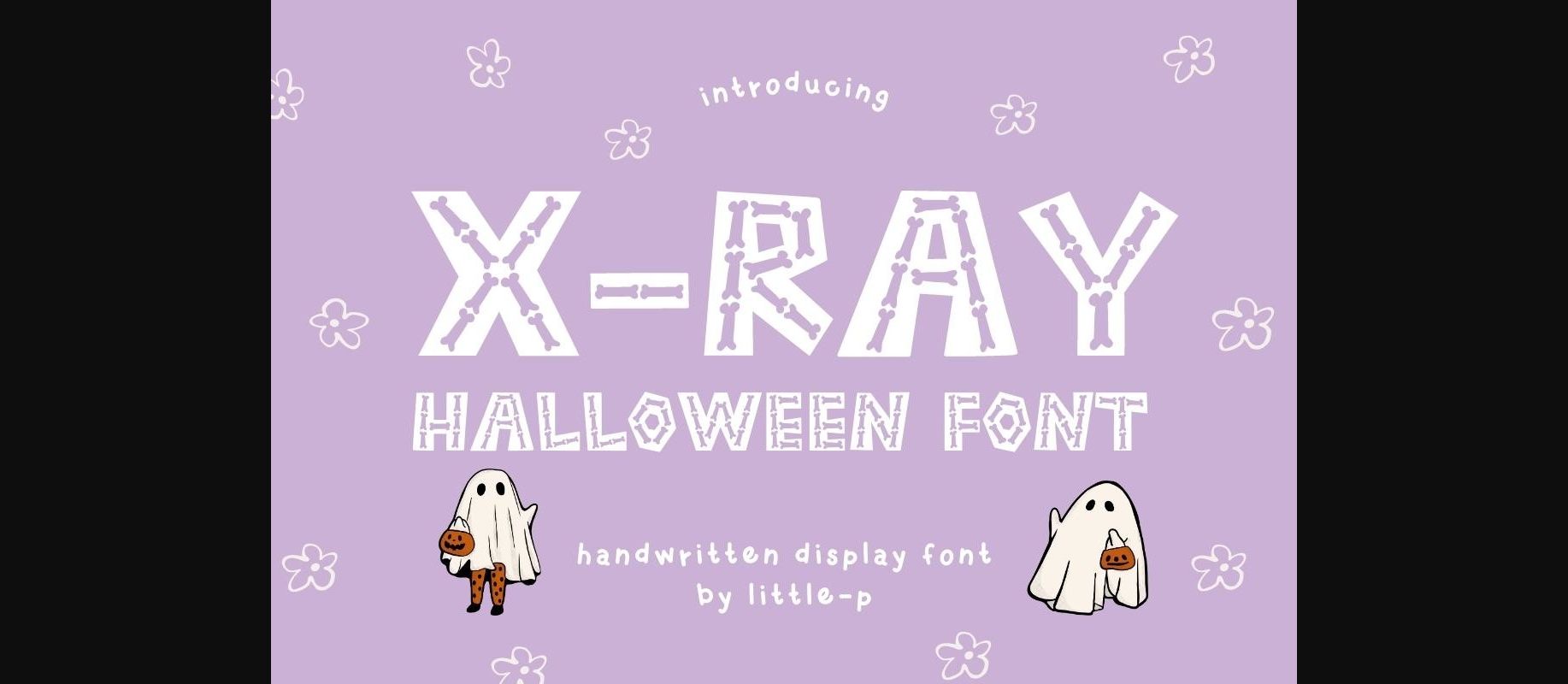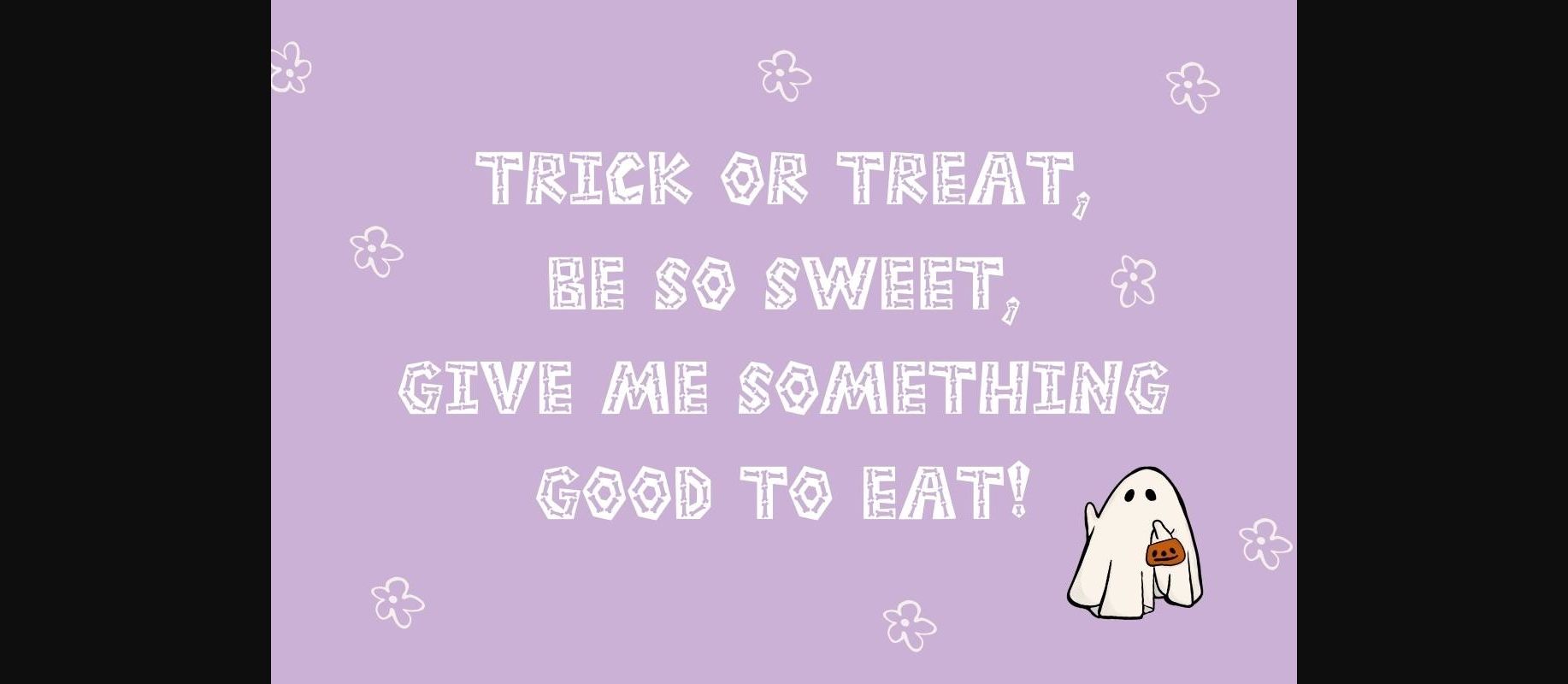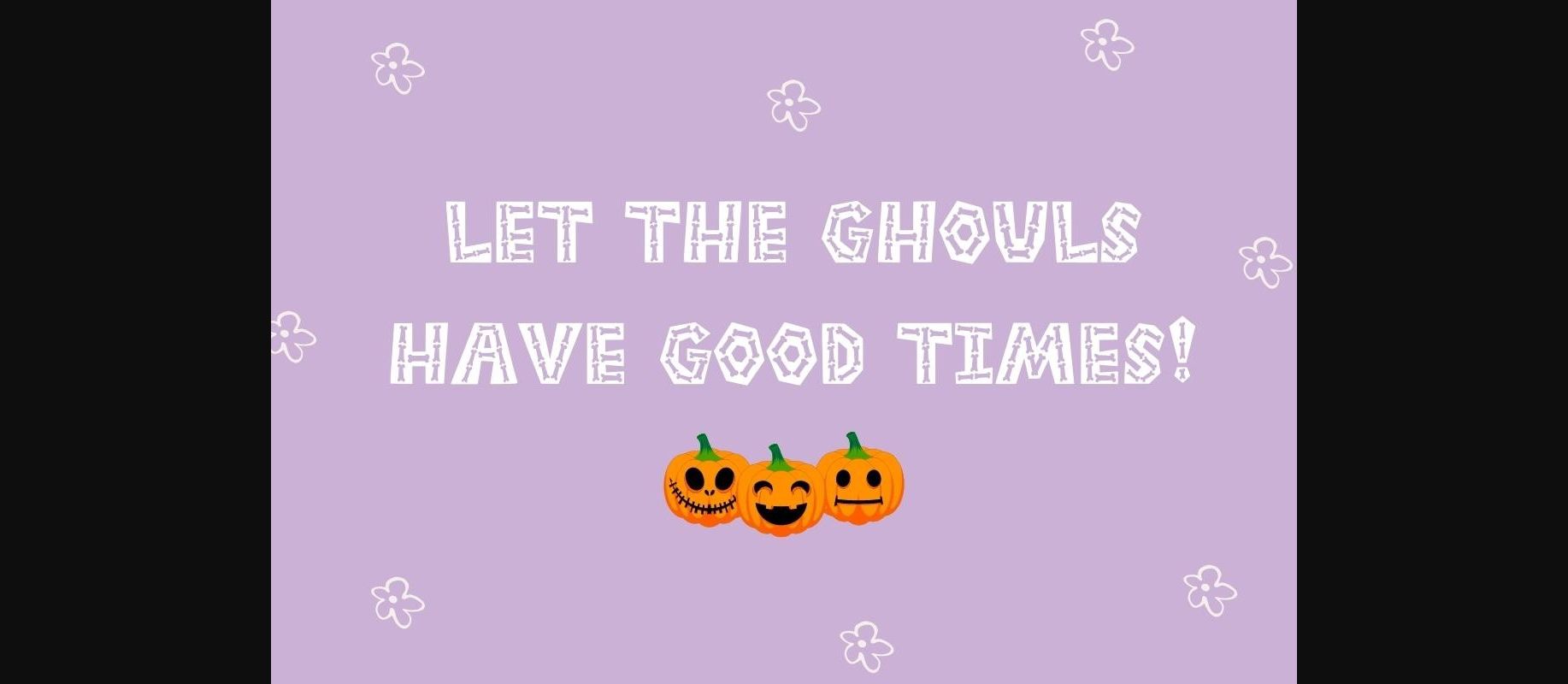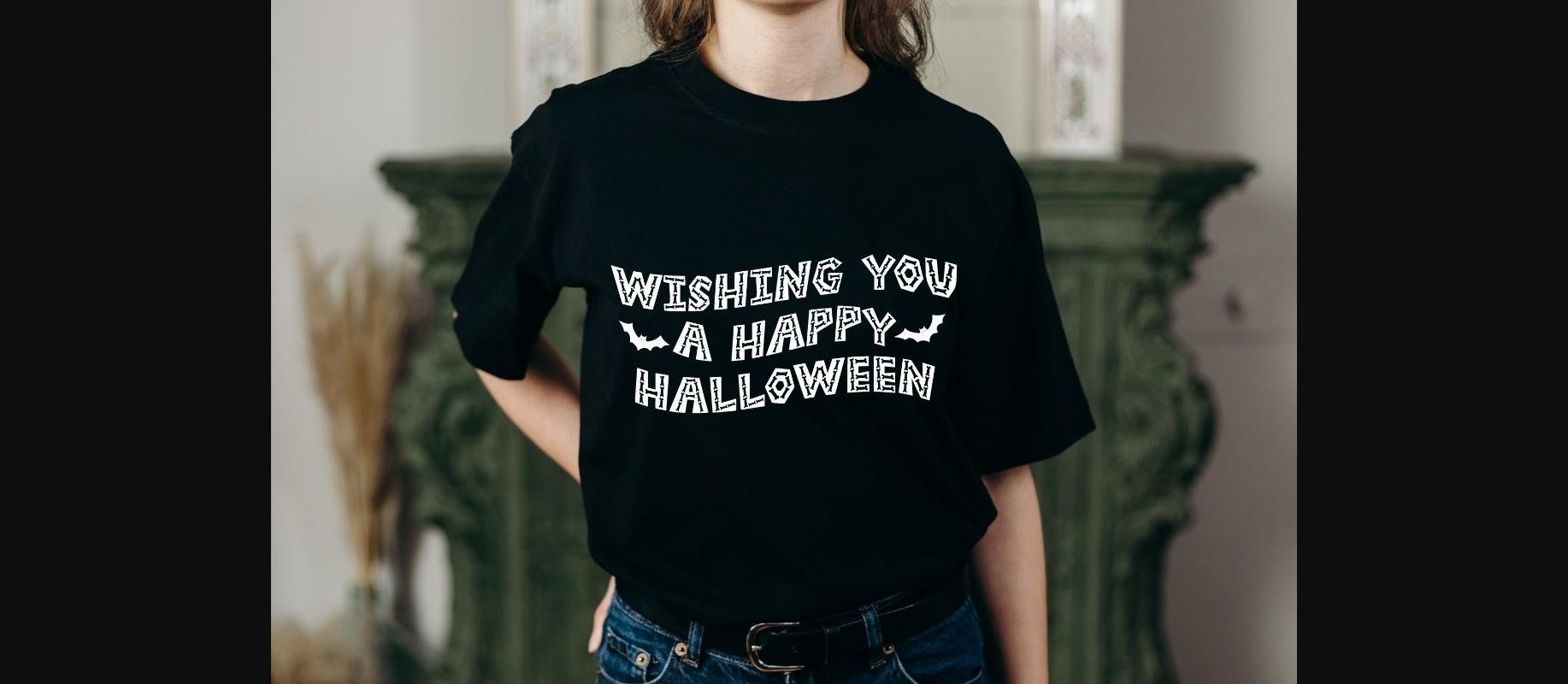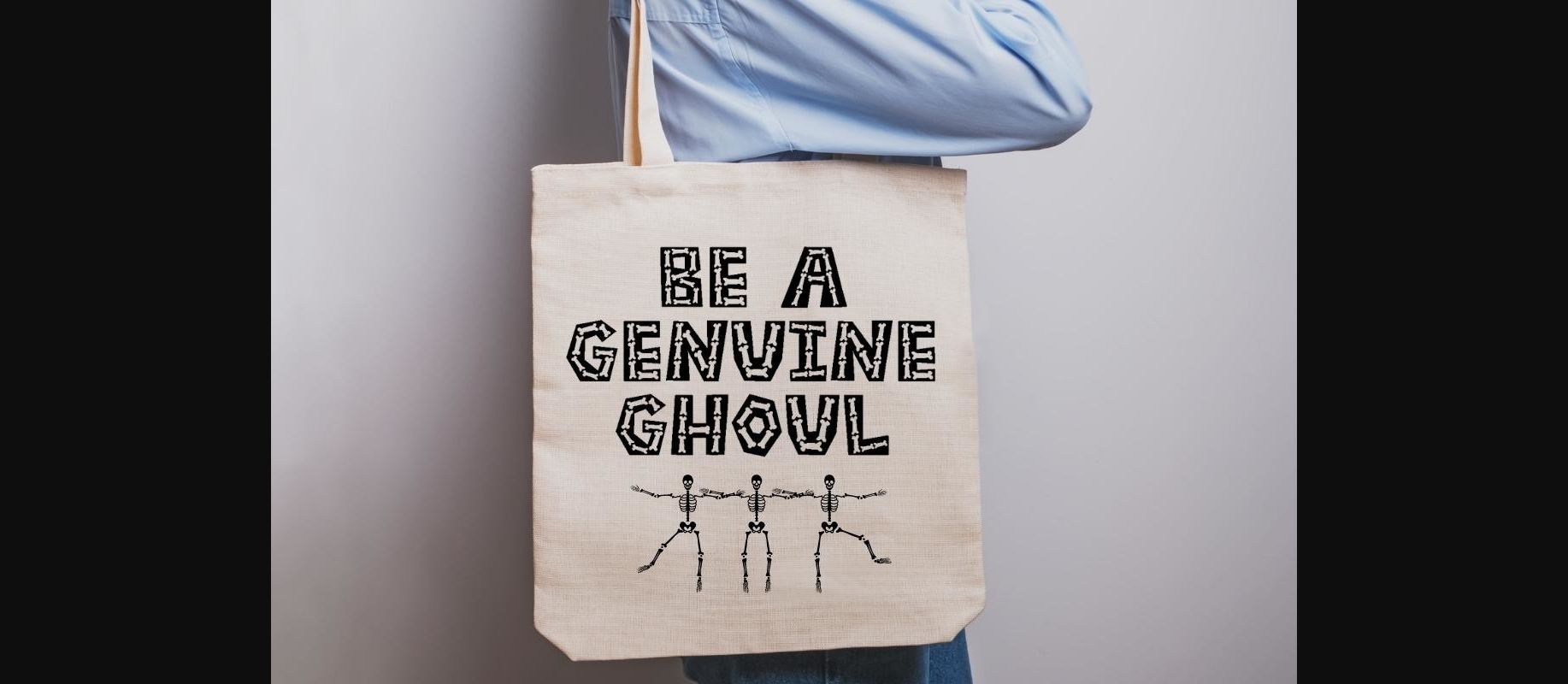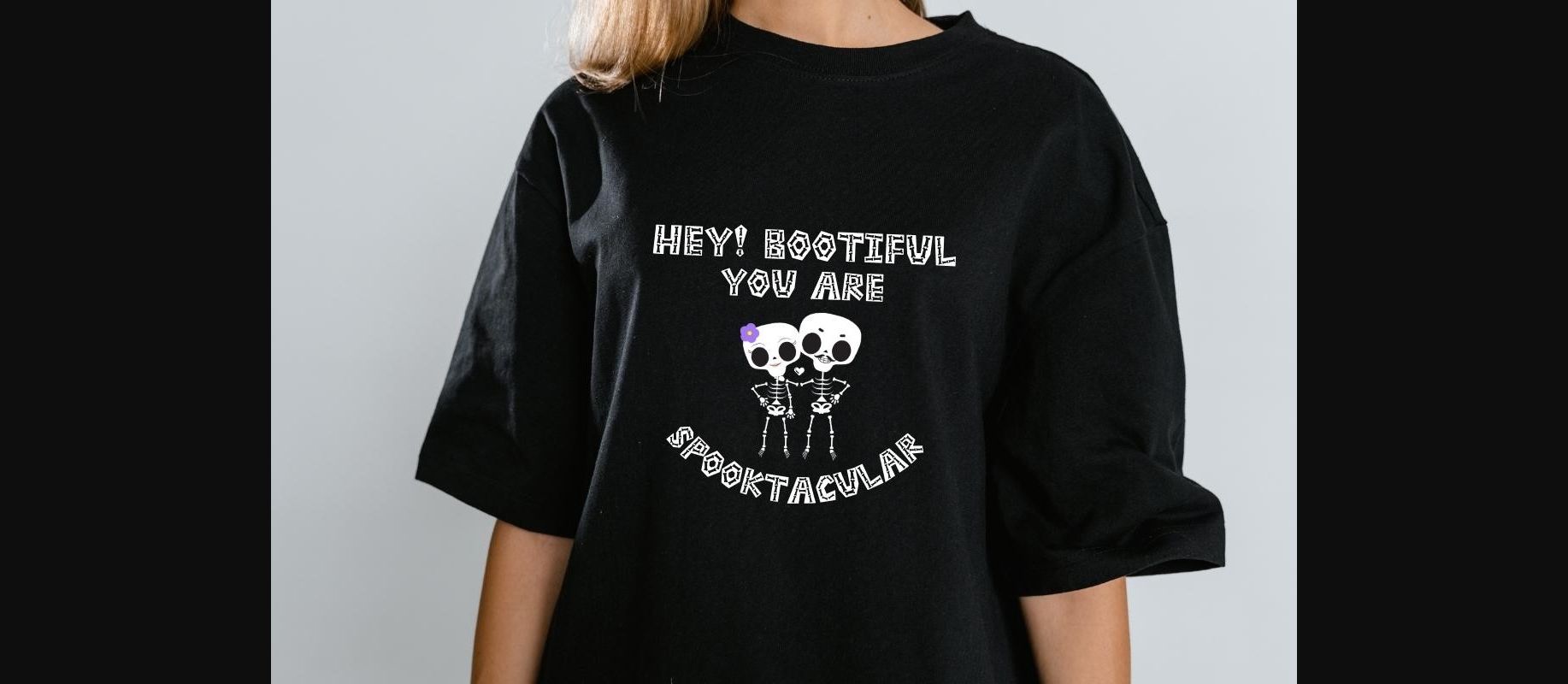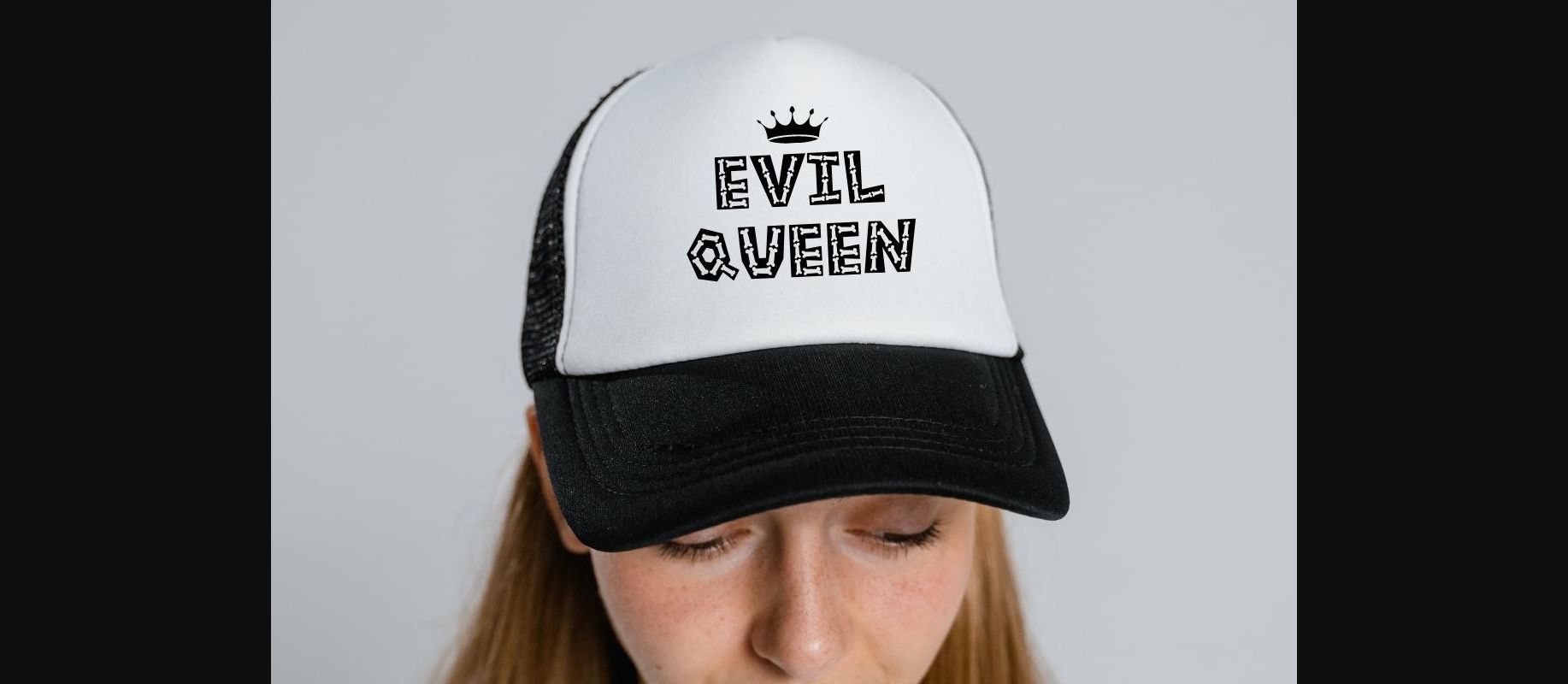
X-ray Font
About X-ray Font
Introducing “X-ray” the Halloween display font that creatively takes inspiration from the intricate shape of the skeleton within the body. With its playful and cartoonish design, X-ray strikes the perfect balance between spooky and cute, capturing the essence of Halloween in a unique way.
This versatile font is ideal for a variety of Halloween-themed projects, including eye-catching posters, captivating cards, T-shirt designs that stand out, chilling horror book covers, and merchandise that carries the Halloween spirit. Whether you’re crafting fun stickers or infusing a touch of playful spookiness into your projects, X-ray font adds character and excitement.
Embrace the captivating allure of “X-ray” and make a lasting impression with this font that embodies both the eerie and endearing aspects of Halloween.